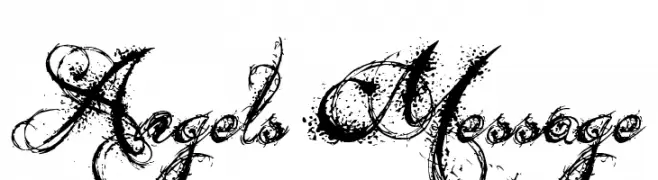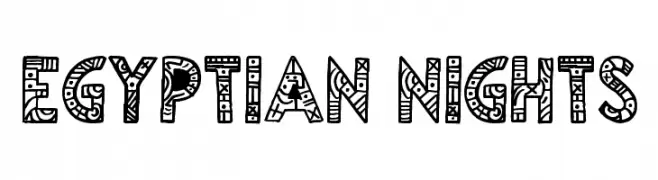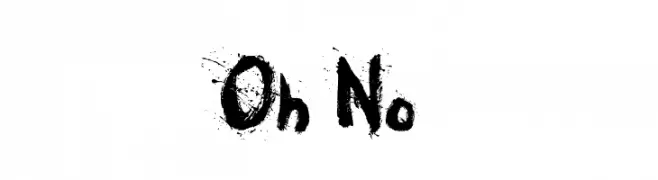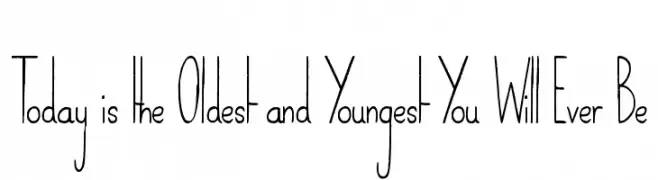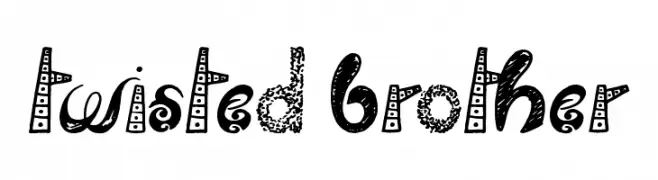
An intricate, decorative font with swirling, vine-like embellishments.
A bold, playful font with a hand-drawn, comic book style.
An ornate and decorative script font with intricate swirls and flourishes.
A bold, decorative font with intricate patterns and geometric shapes.
A decorative and playful font with intricate patterns and whimsical letterforms.
A bold, distressed font with a textured, spray-painted appearance.
A playful, hand-drawn font with a textured, whimsical style.
A bold, hand-drawn font with a textured, scribble-like pattern.
A bold, brush-style font with a raw, expressive aesthetic.
A tall, narrow font with a modern and artistic style.